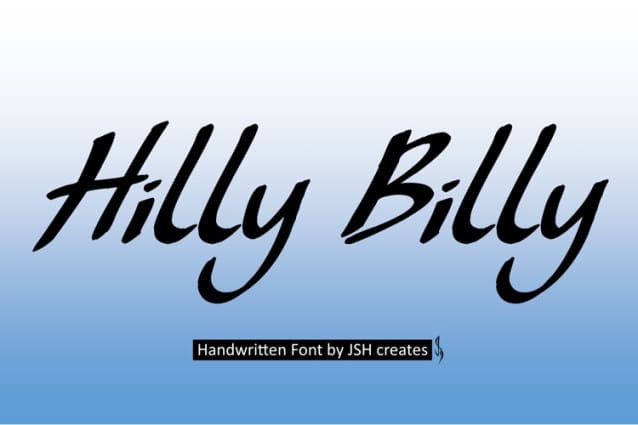
Hilly Billy Font
Hilly Billy Font, Cool handwritten calligraphy font.  Perfect for advertising and display purposes, including banners, book covers, shirts, posters, logos and much more!